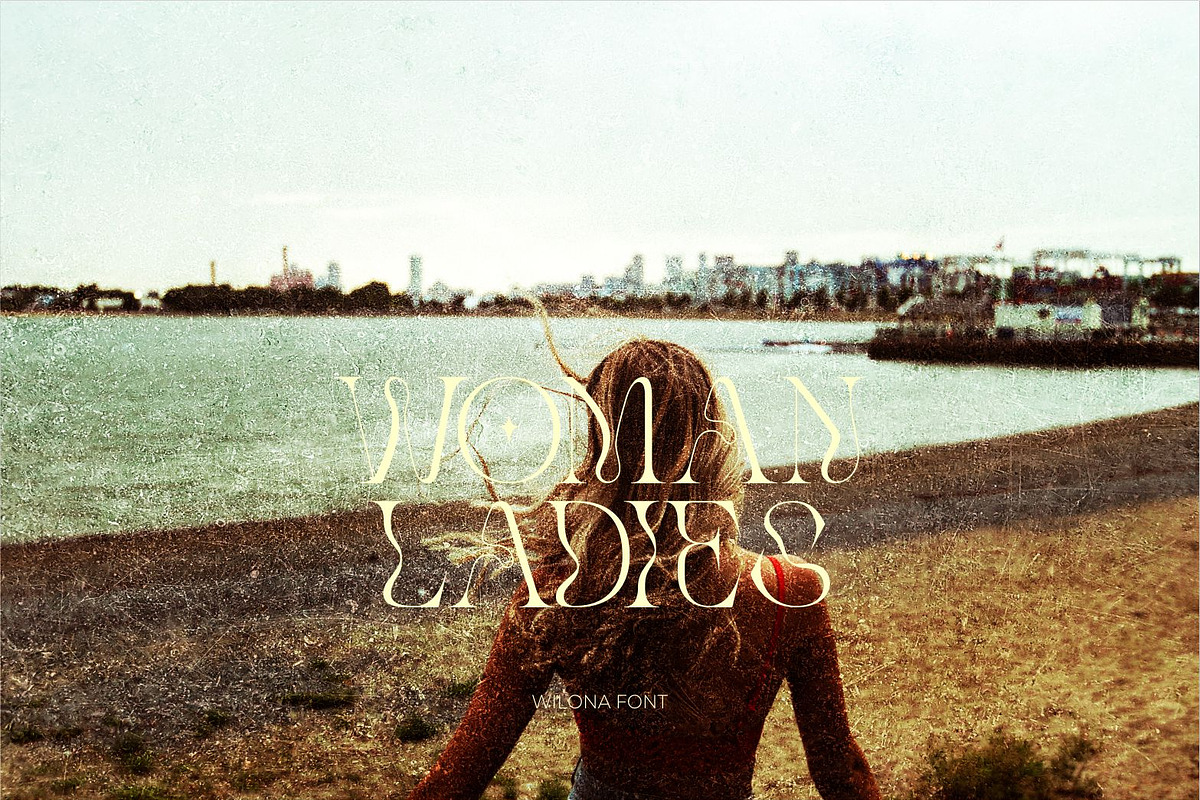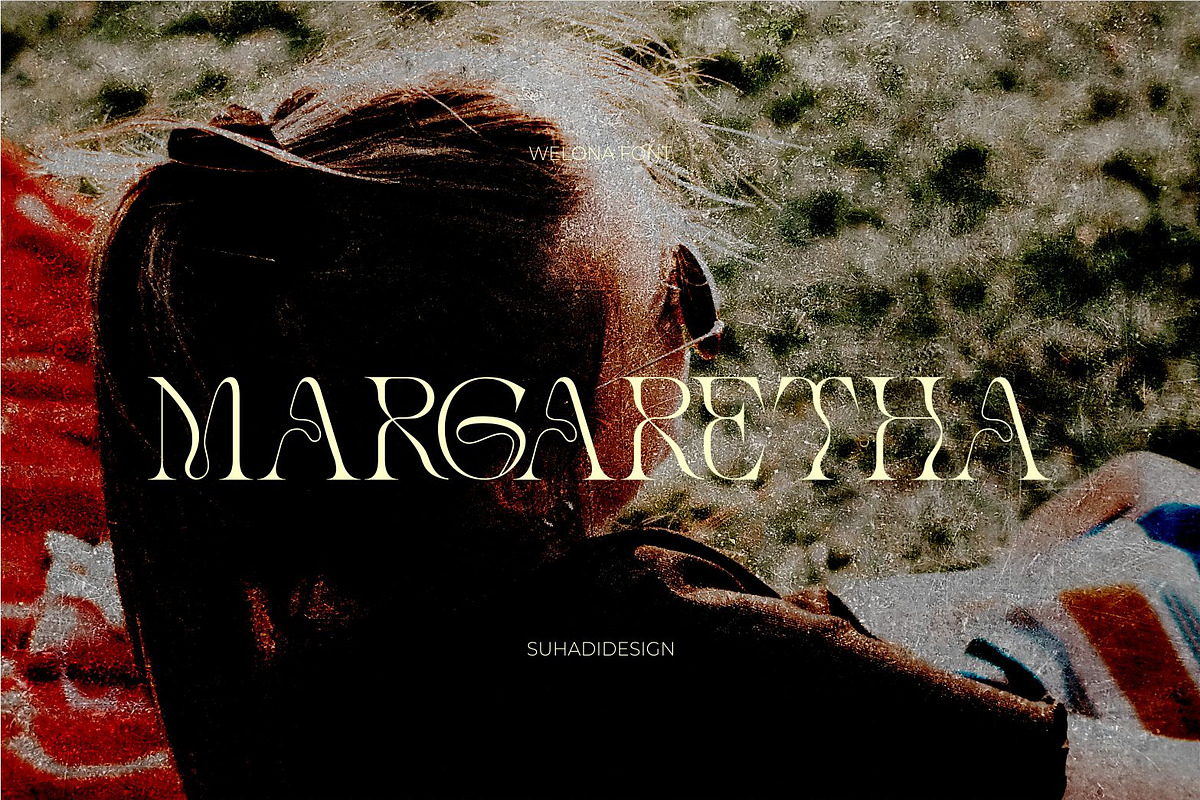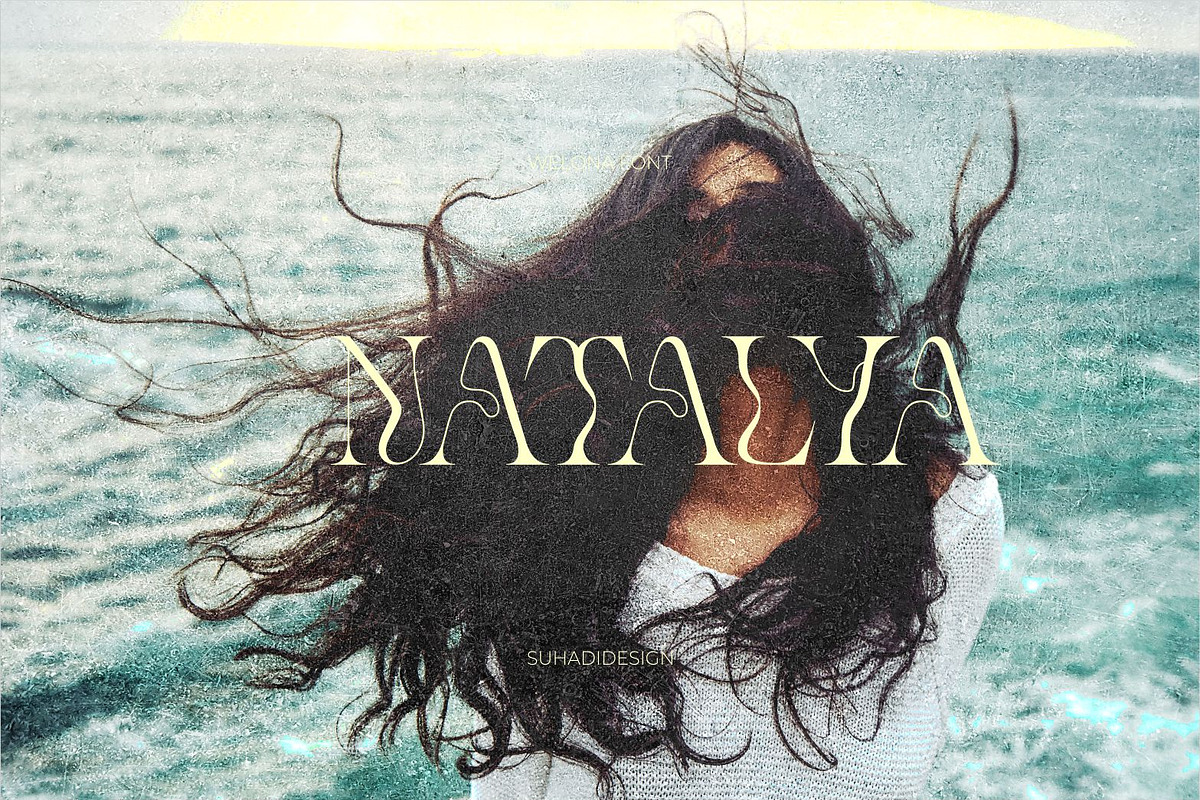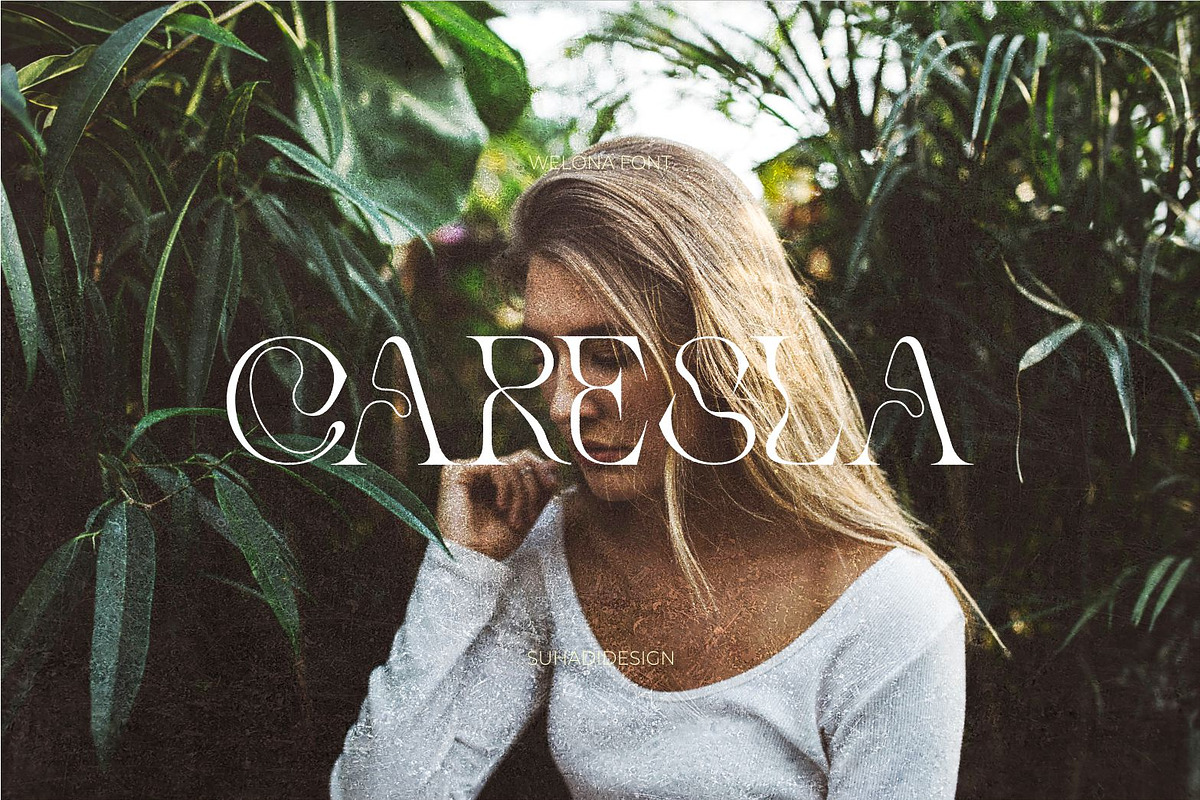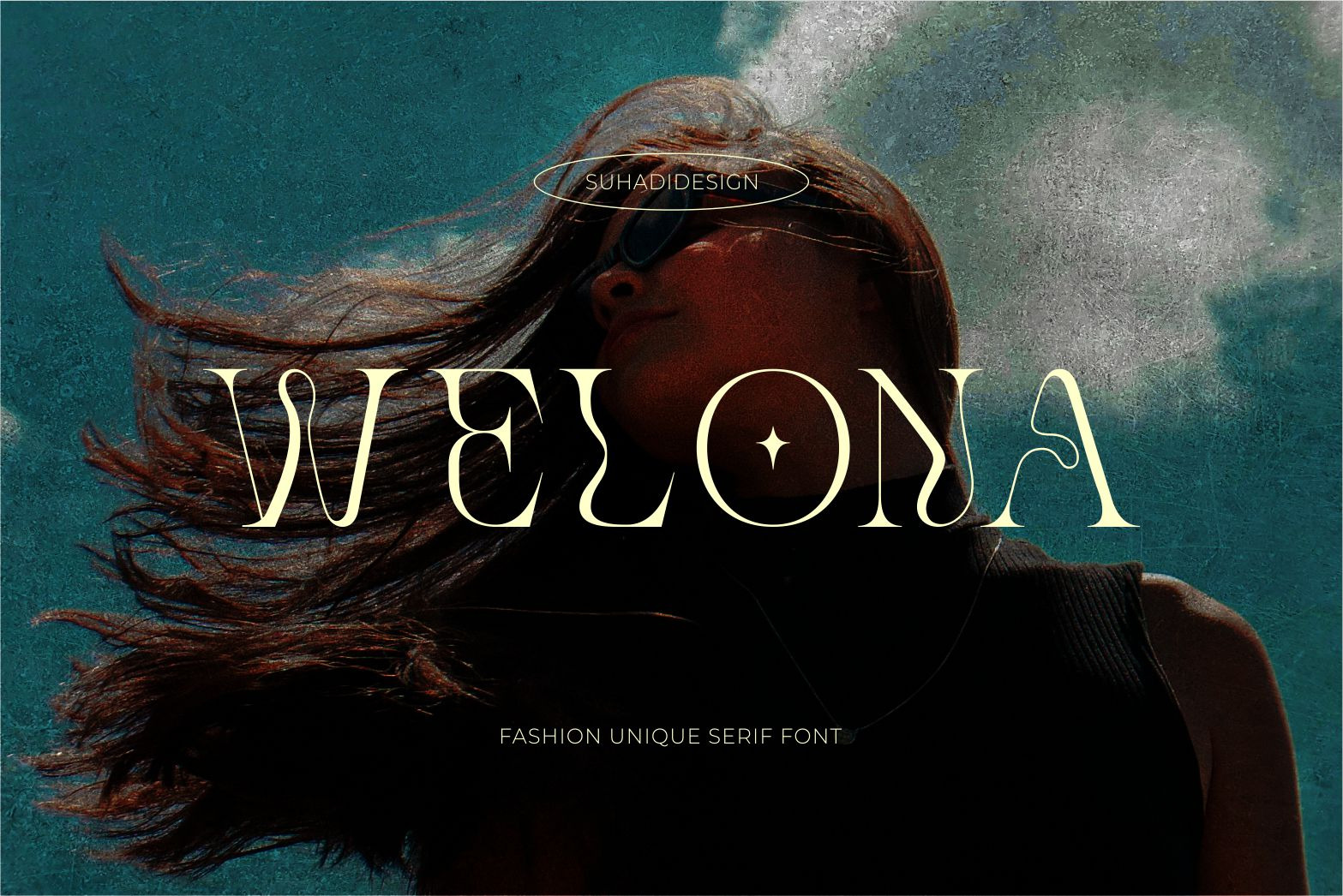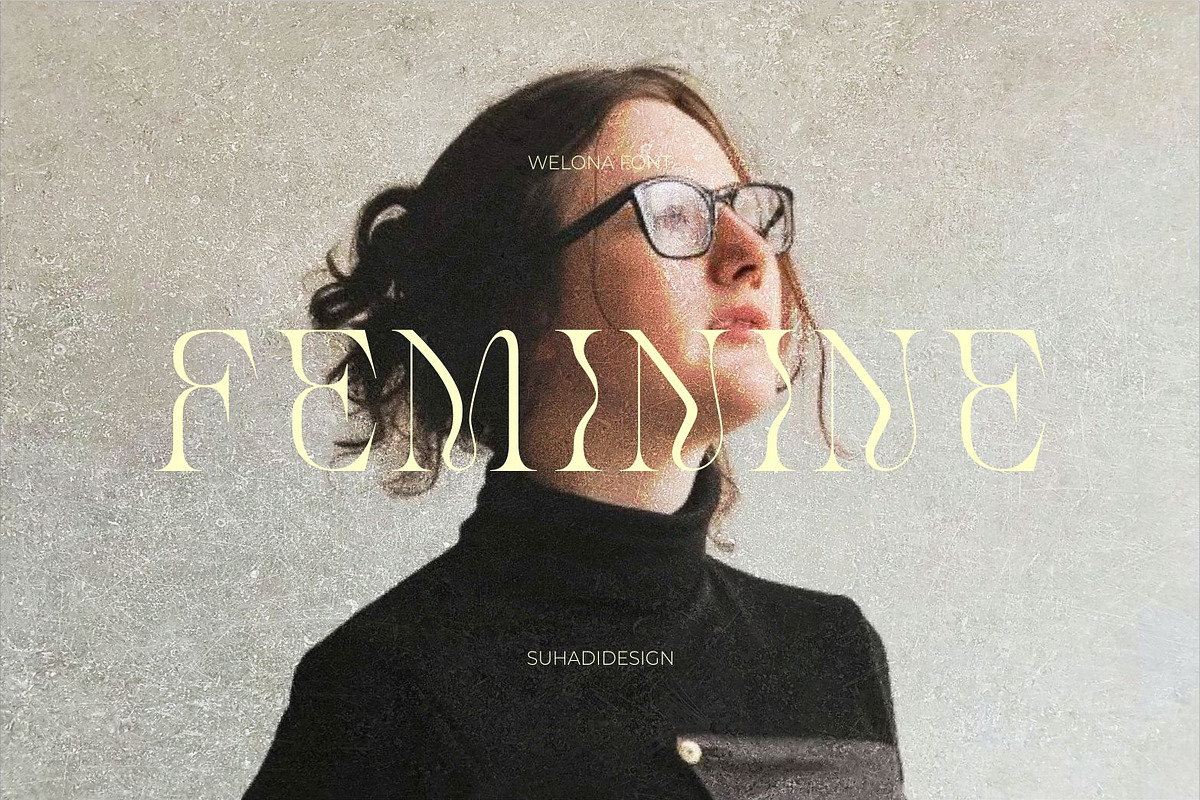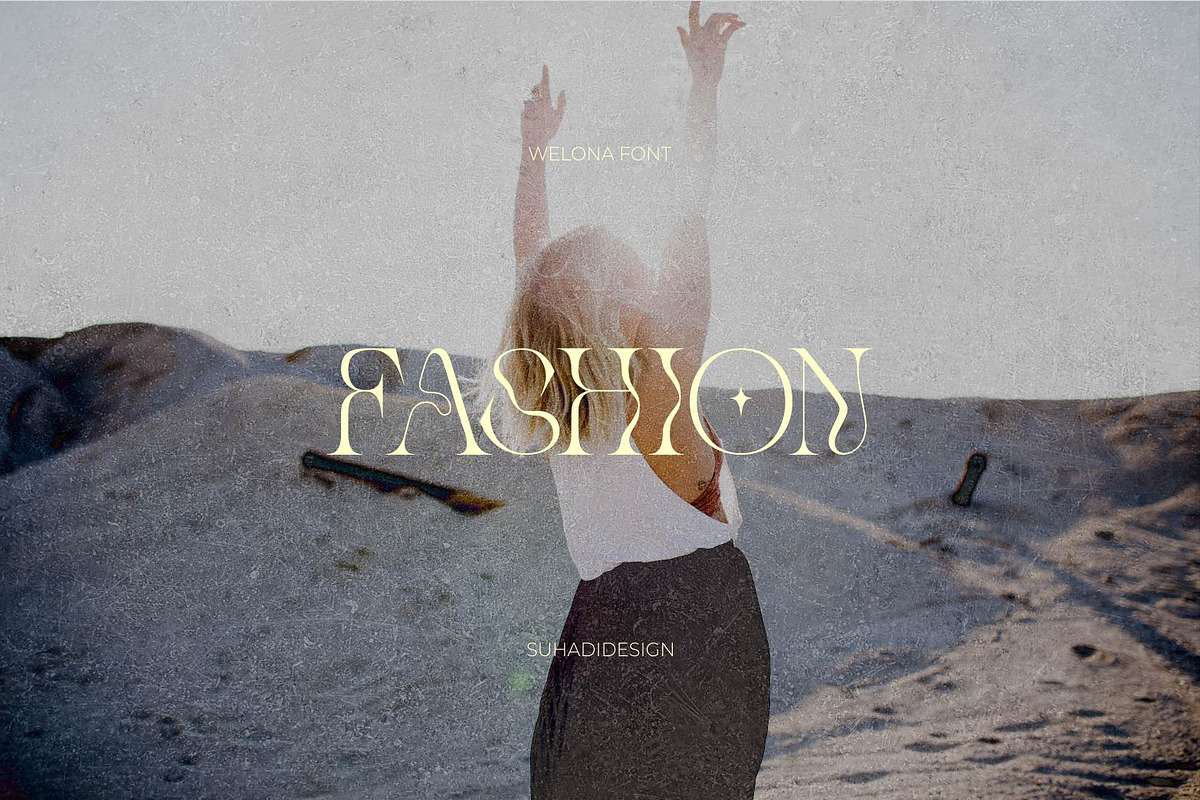
Welona - Elegant Fashion Serif Font
Hi ladies and gentlemen! The newest modern elegant font has arrived which is a font that many ladies and gentlemen are looking at. Namely the Welona font. The Welona font is an elegant and modern serif font. With an elegant and stylish model, it has become a market favorite. We keep this font looking elegant, classy, stylish. Welona Font is the right choice for Feminine, Woman, Fashion, Magazine, Design, Book, Publication, Branding, Brand Name, Business Cards, Social Media, Classy Design, Newspaper, Branding, Beauty and Other Projects. Welona Font is here to improve the quality of your designs.
Feature:
• All Uppercase • Multilingual Support • Numerical • Punctuation